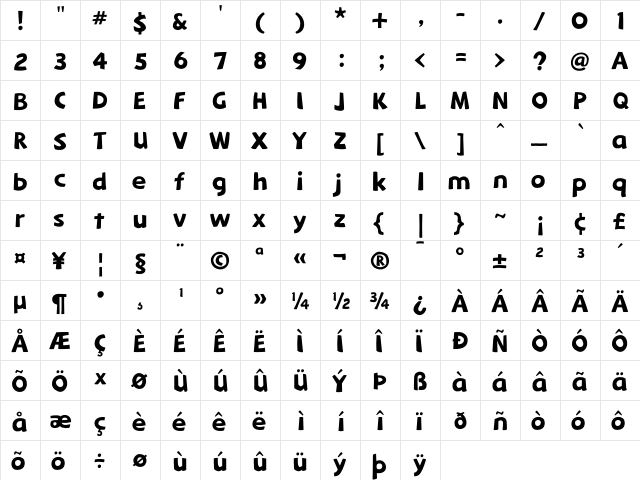
MenyakaBold Bold Font Preview
MenyakaBold Bold
MenyakaBold Bold Font Details
| Designer | Jan Erasmus |
Design Context for MenyakaBold Typeface
MenyakaBold offers clean, dependable letterforms without strong stylistic allegiance, making it a practical choice for designers who need flexibility. Its bold stroke weight gives it real presence on the page.